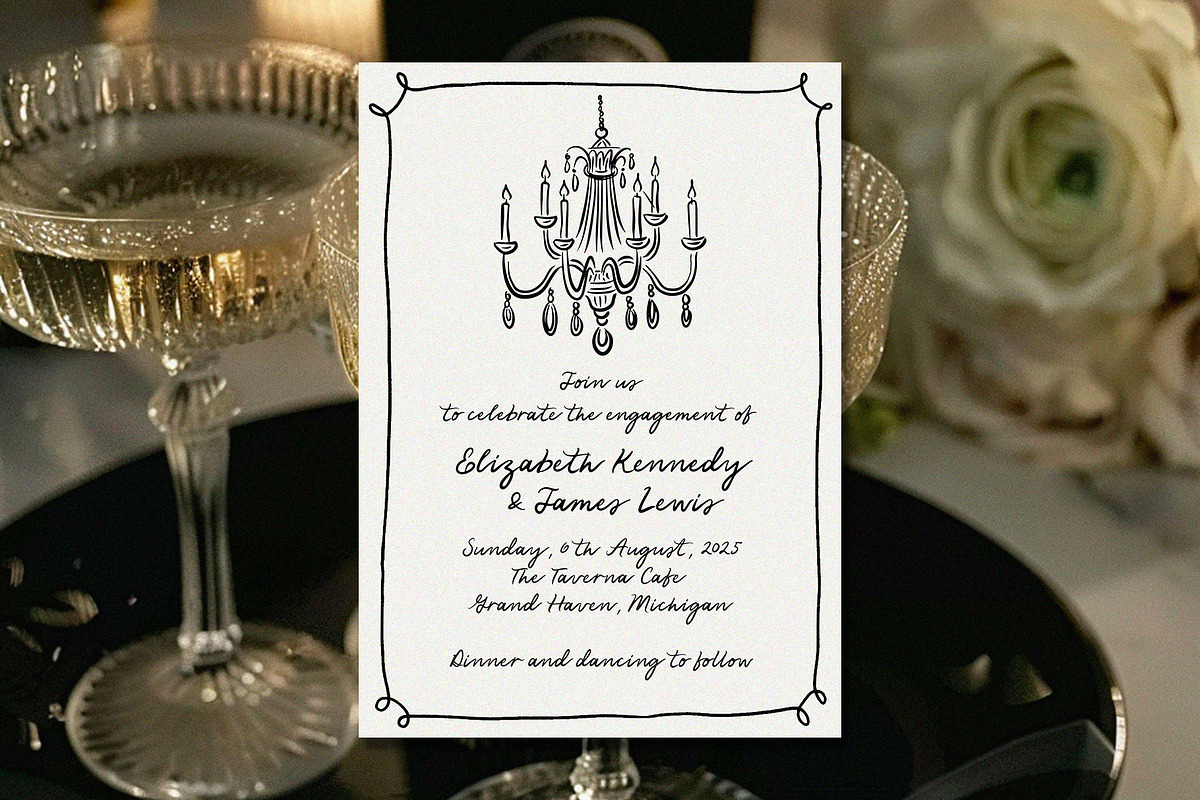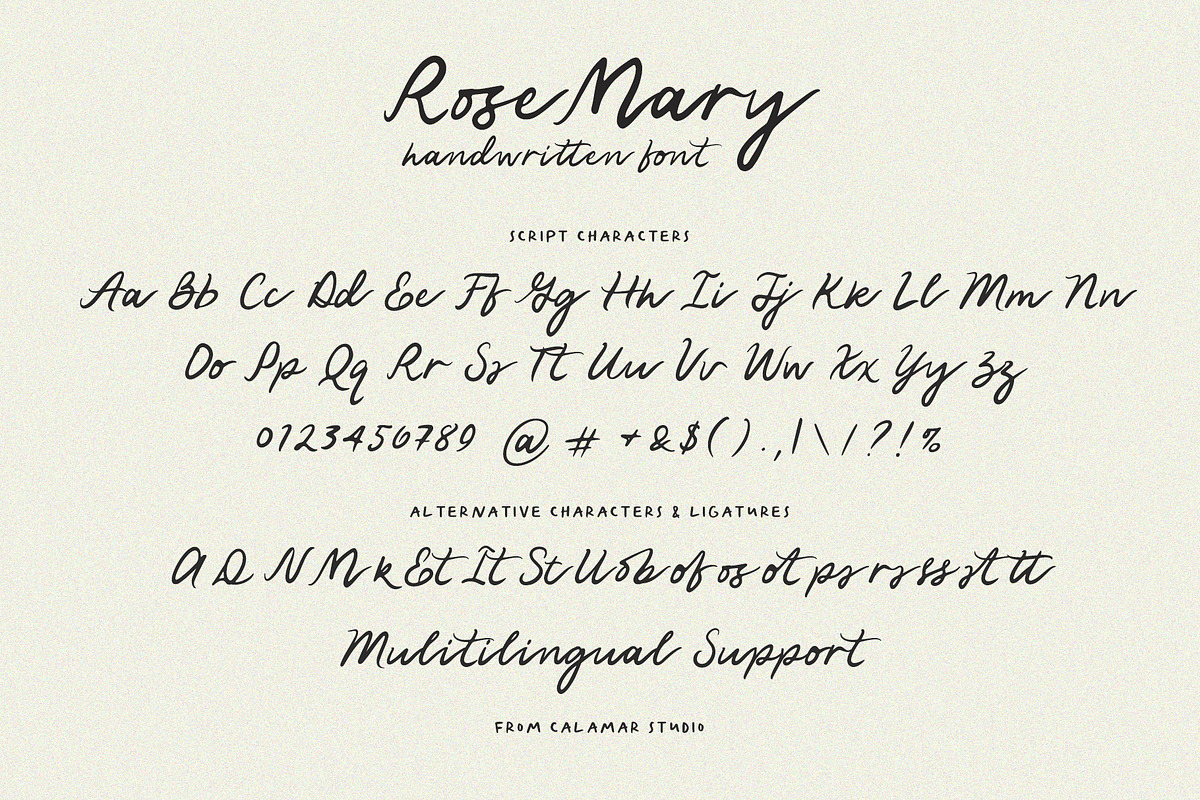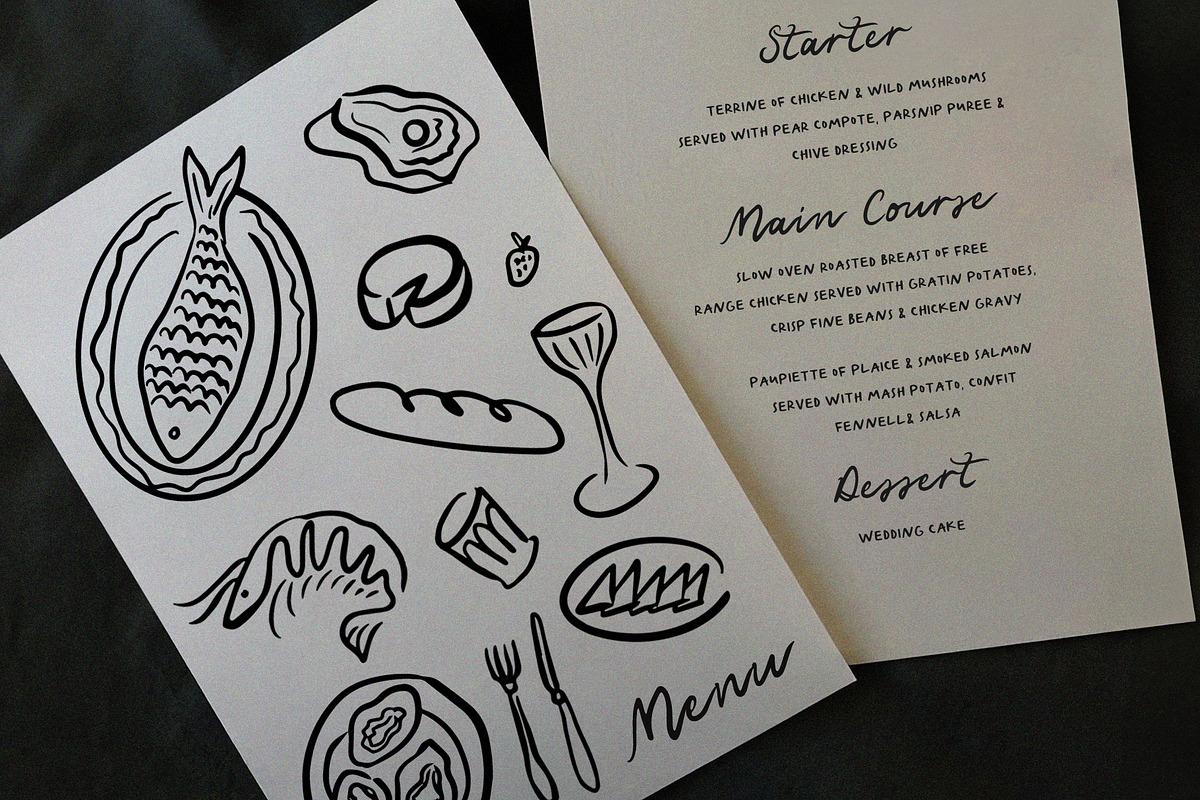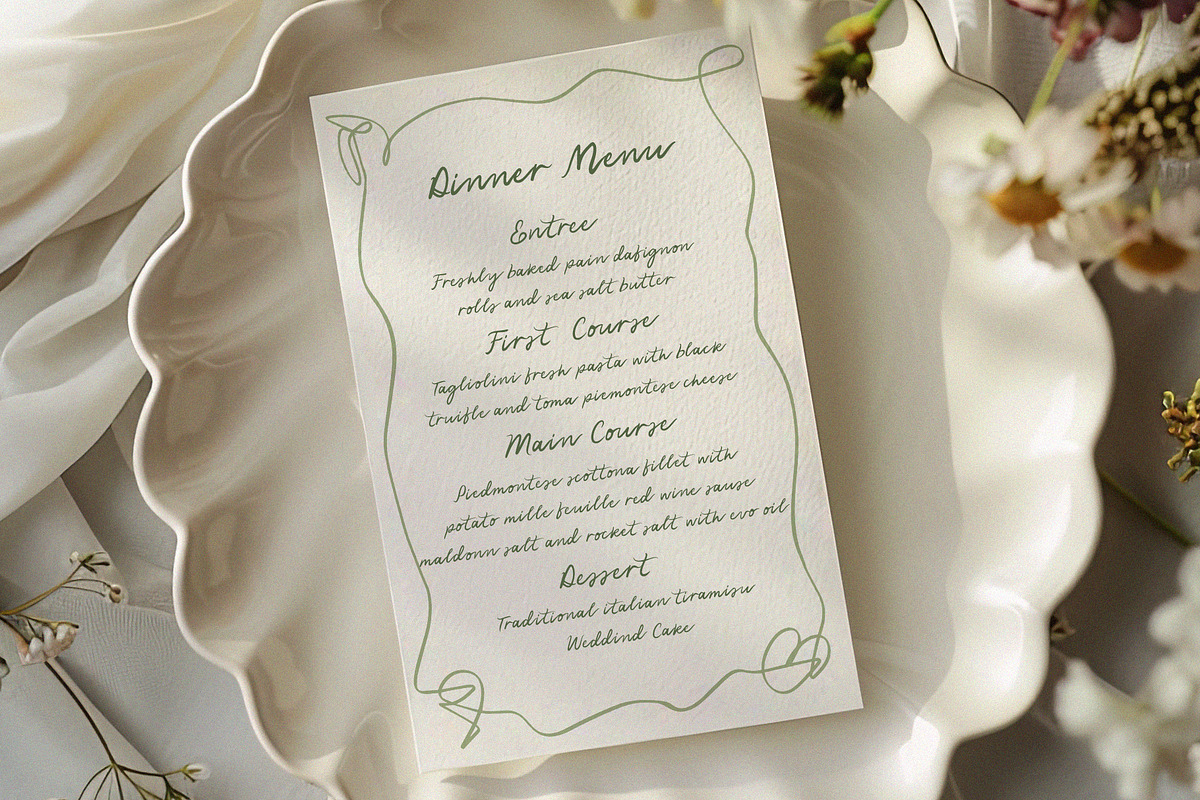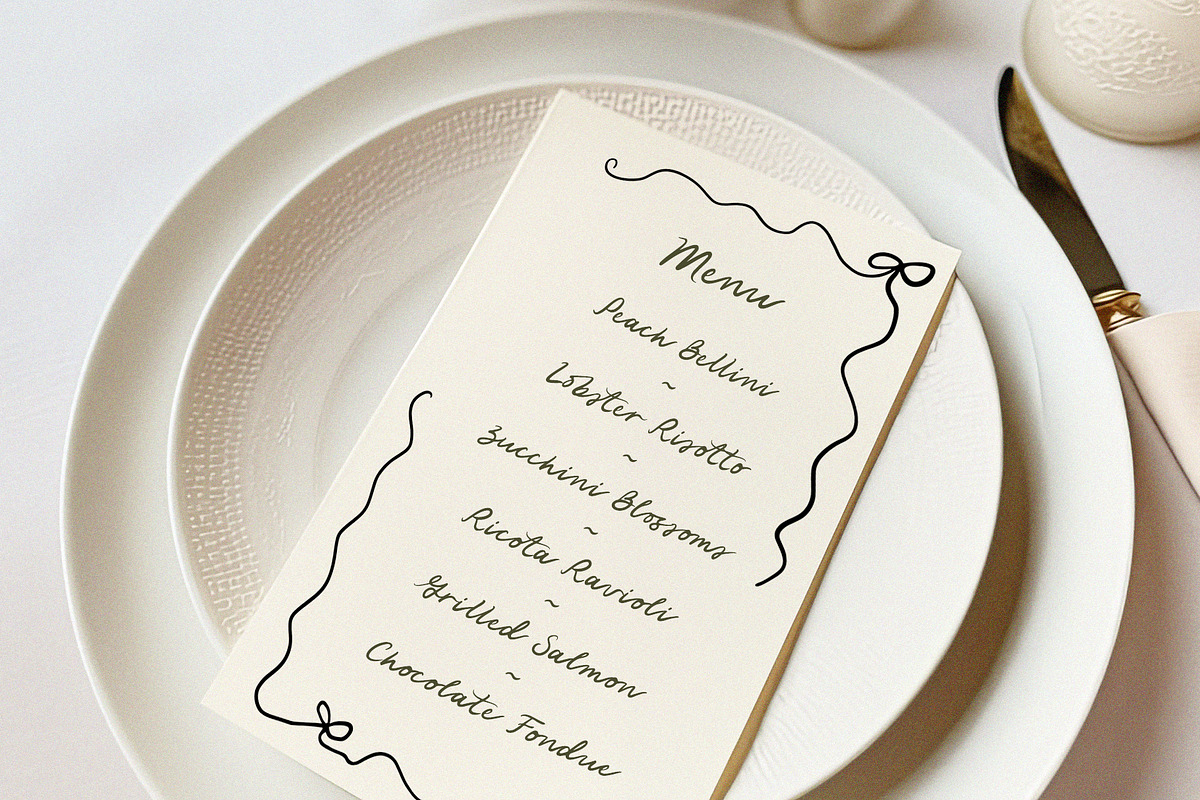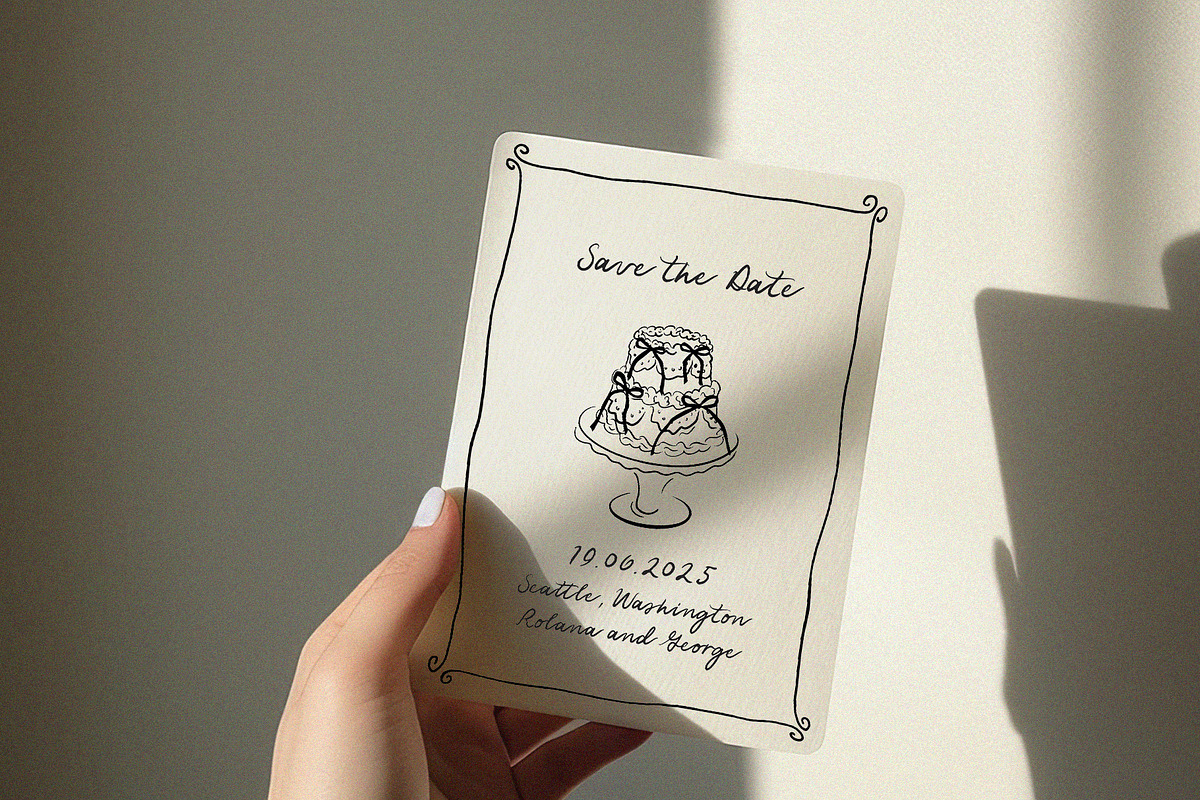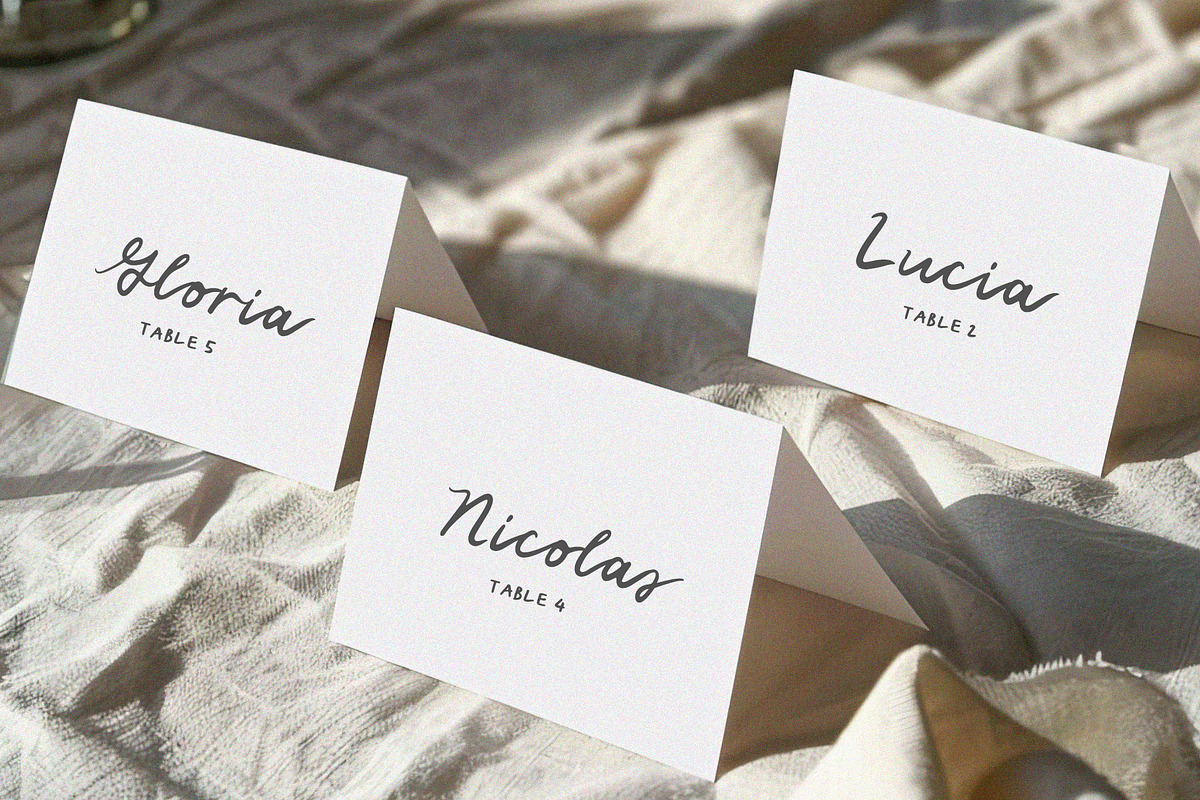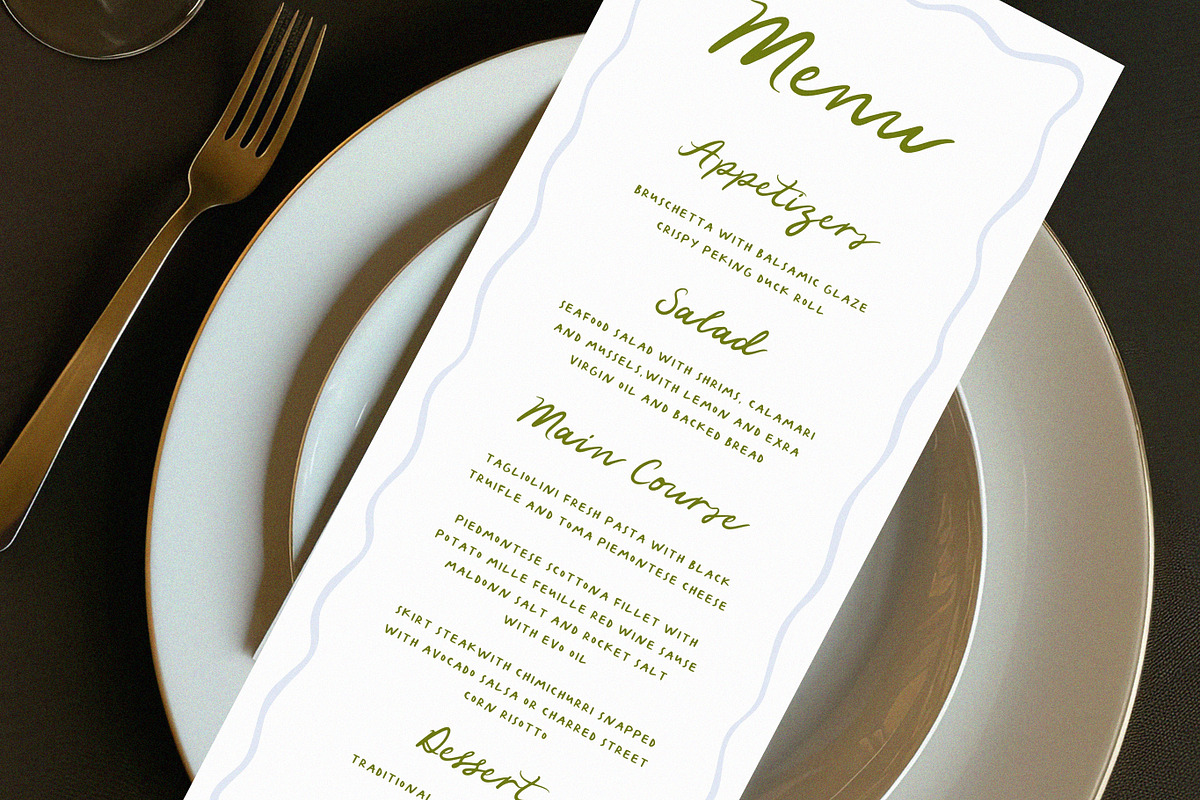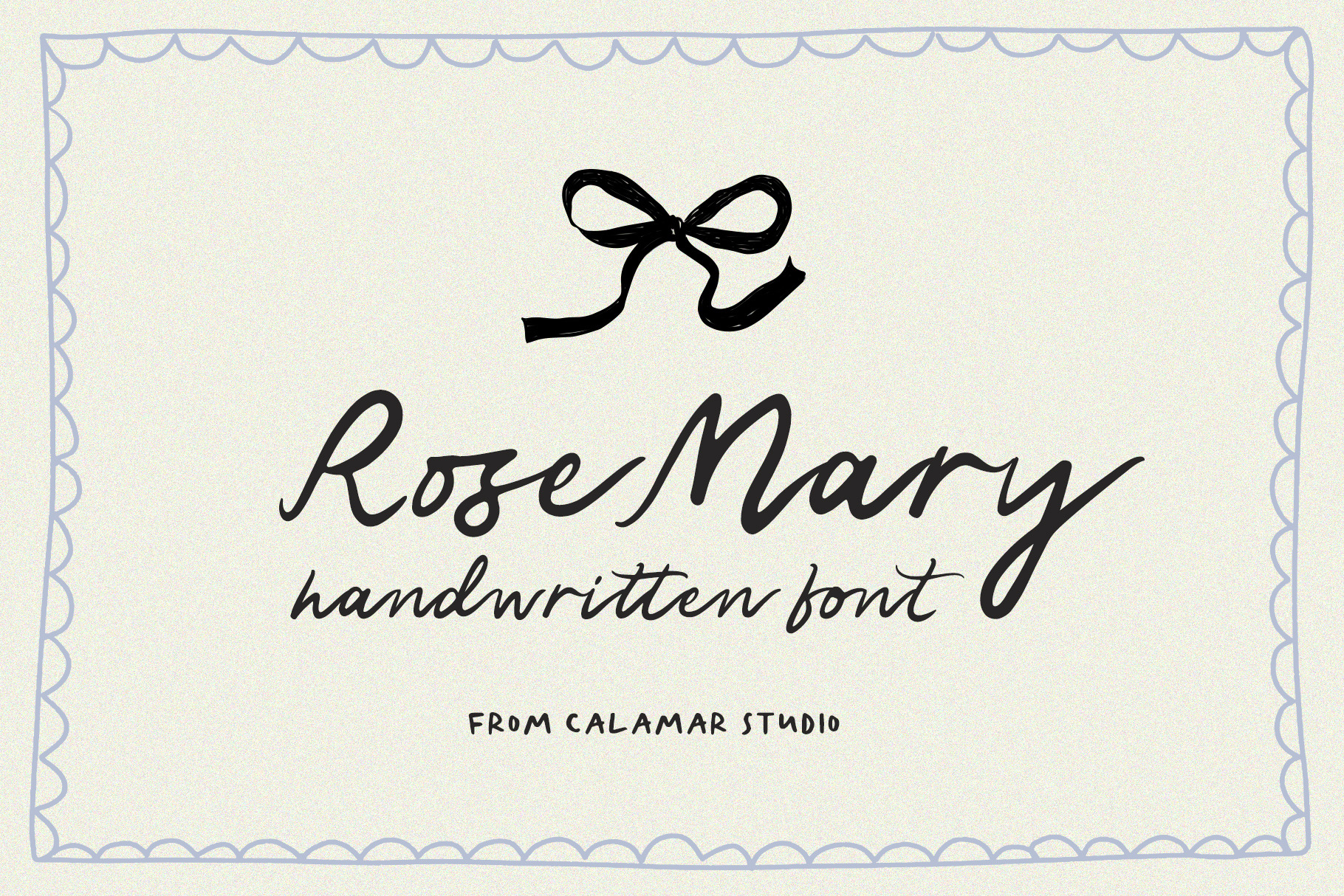
Rose Mary Handwritten Wedding Font
Calamar Studio introducing you the new handwritten font that will be perfect on your wedding invitations in 2024-2025 wedding season. Casual, trendy and absolutely stunning - that's all about Rose Mary font. It perfectly combines with Whimsical Love collection https://creativemarket.com/calamarstudio/279229683-Whimsical-Wedding-Illustrations-SVG